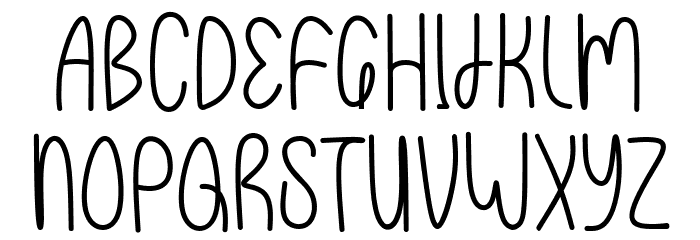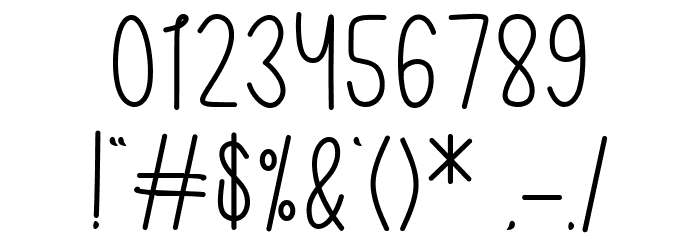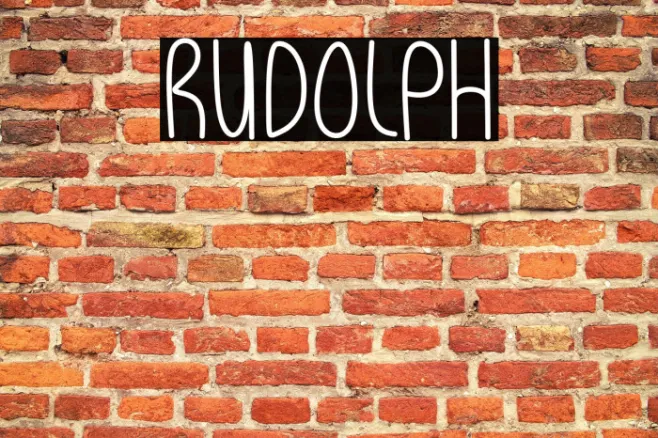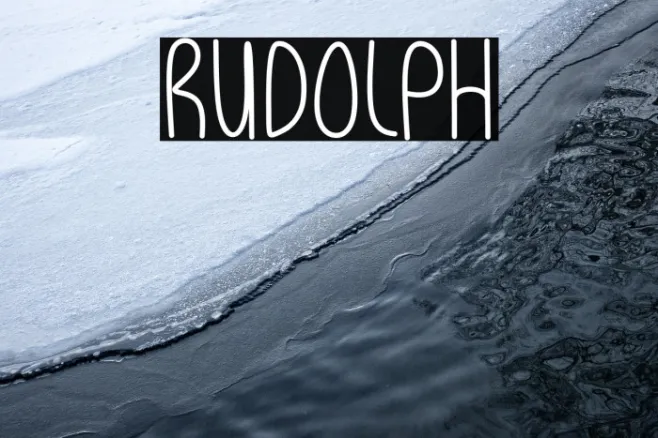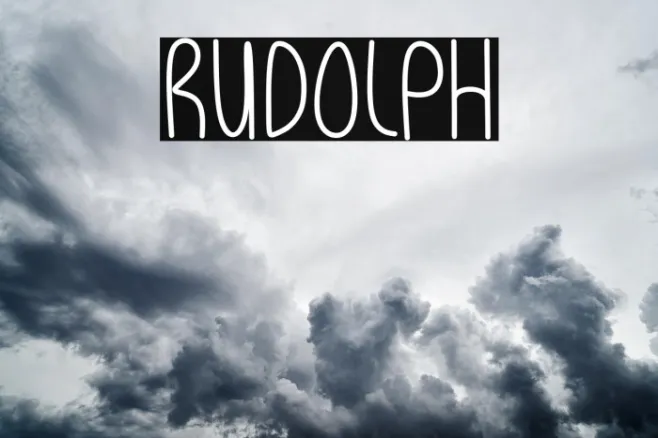
Rudolph Font
This playful and whimsical font features tall, narrow characters with a hand-drawn appearance. The strokes are smooth and slightly irregular, giving it a casual and friendly vibe. The uppercase and lowercase letters maintain a consistent style, with rounded edges and a slight tilt, adding to its informal charm. The numerals and special characters follow the same design principles, ensuring a cohesive look across all elements. This font's unique personality makes it ideal for projects that require a touch of fun and creativity.
A playful, hand-drawn font with tall, narrow characters and a whimsical style.
- Proposed Projects: Ideal for children's books, greeting cards, playful branding, and creative posters.
- Overall Style: Playful